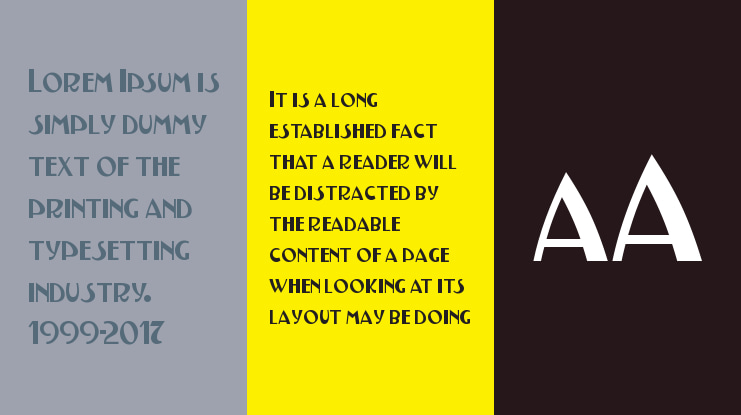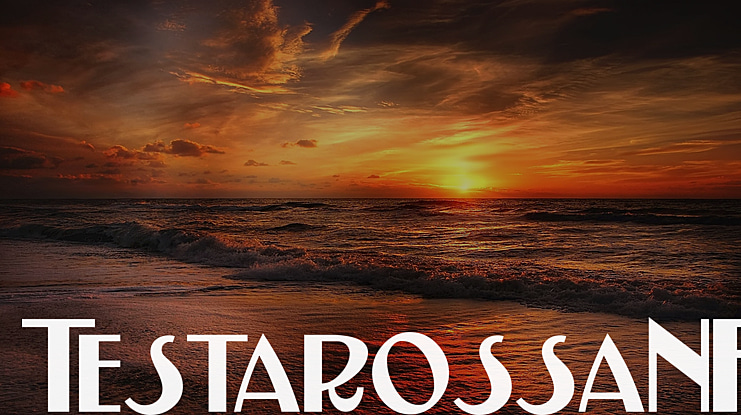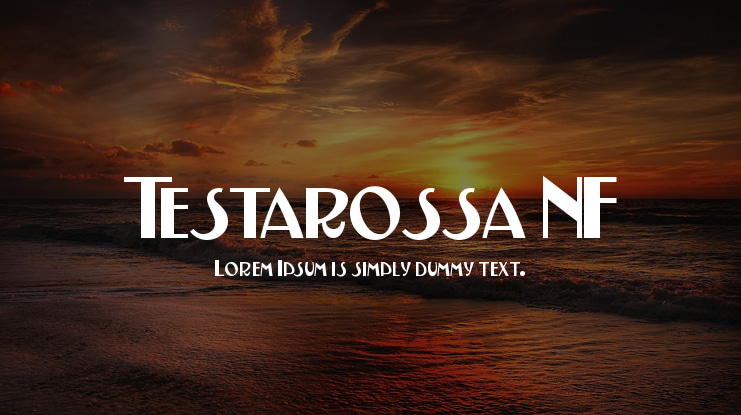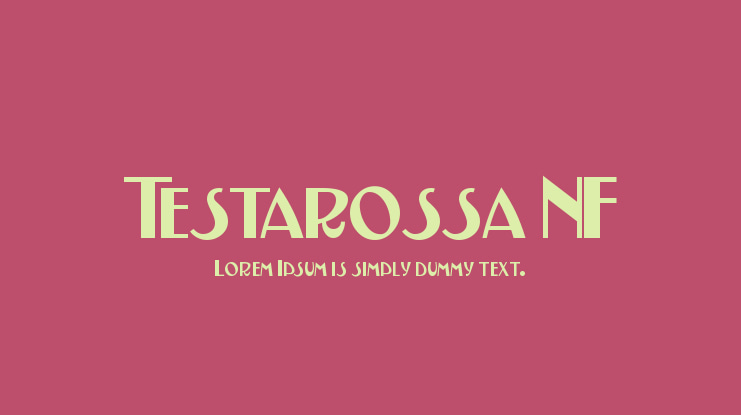
Testarossa NF Font
Nick Curtis
Saw this sinewy lettering on a 1907 poster for a motorcycle rally in Milan, Italy, and had to digitize it (sorry, original designer not known). The name, besides its association with pricey autos, means “redhead” in Italian. Swervy, curvy, a little nervy: the name fits.